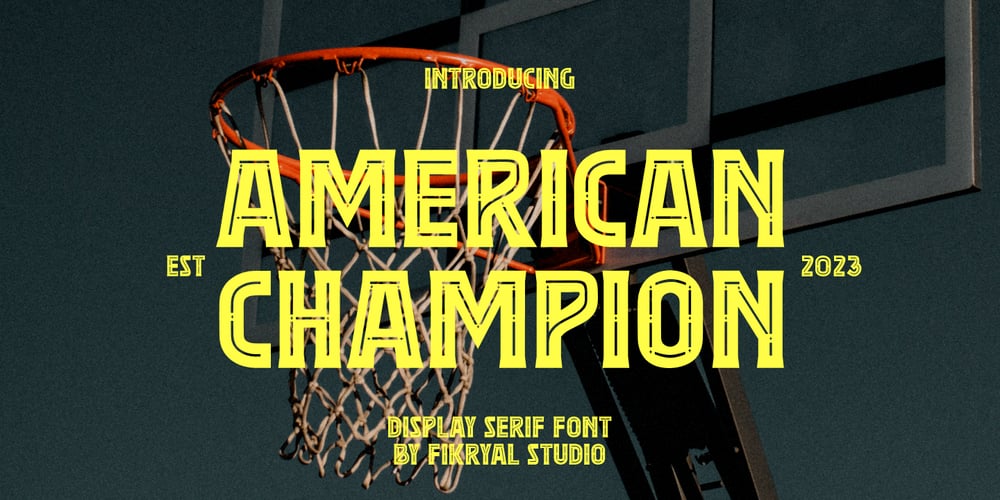
American Champion Font Family was designed by Muhammad Fikry and published by Fikryal. American Champion contains 1 styles and family package options. American Champion – Display SerifThis font is very suitable to be applied in various aspects of design, and your branding.It’s perfect for logos, branding, title, social media posts, advertisements, product packaging, product designs, label, photography, watermark, special event, magazine, web designs, etc.Features :Multilingual SupportIf you have any questions please don’t hesitate to contact mefollow my Instagram: fkryallThank you